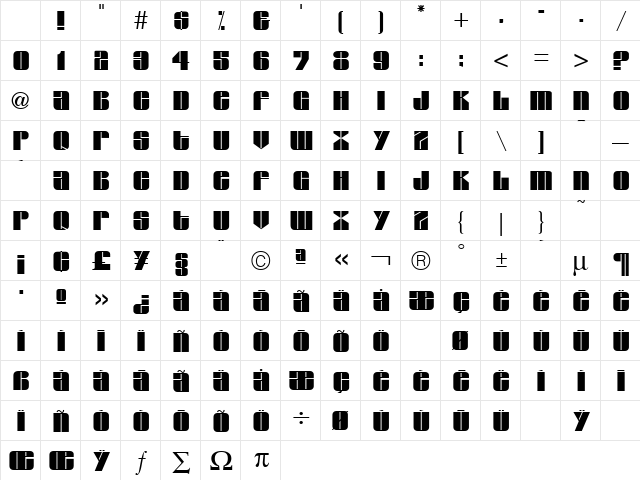
Complete Glyphic Regular glyph index. Displaying only characters natively supported by Glyphic Regular font.
Glyphic is a composed and adaptable typeface that performs quietly and consistently across a wide range of design contexts.